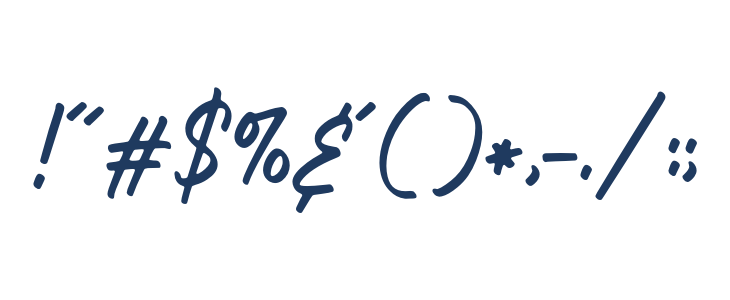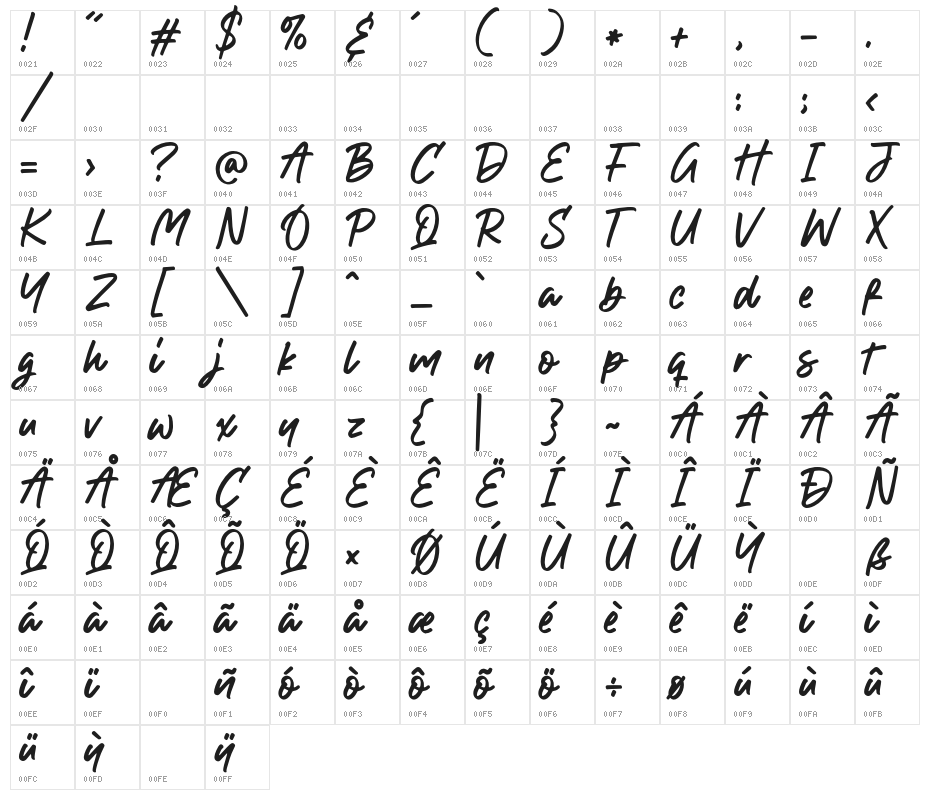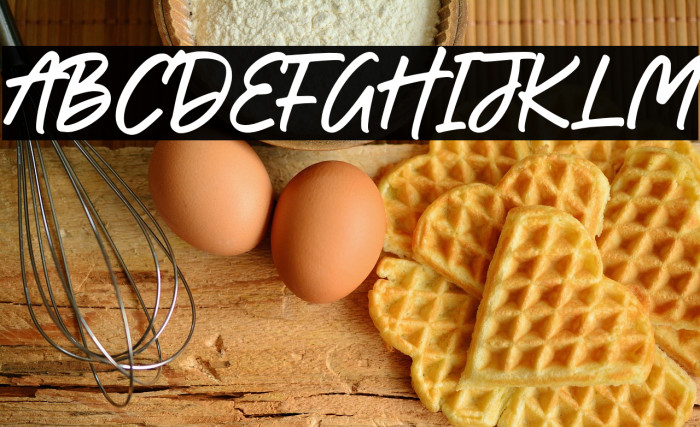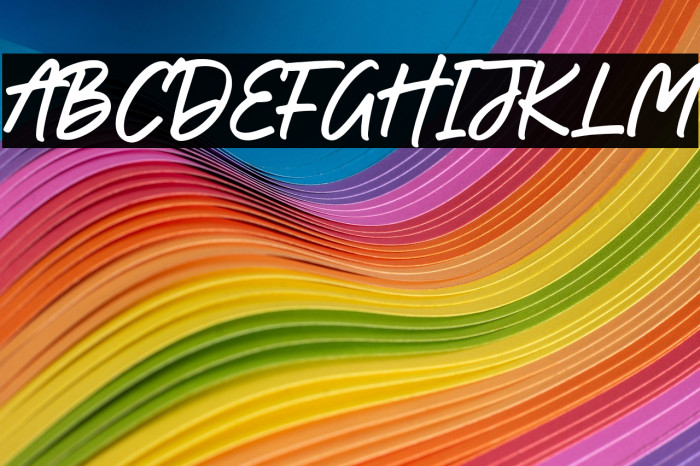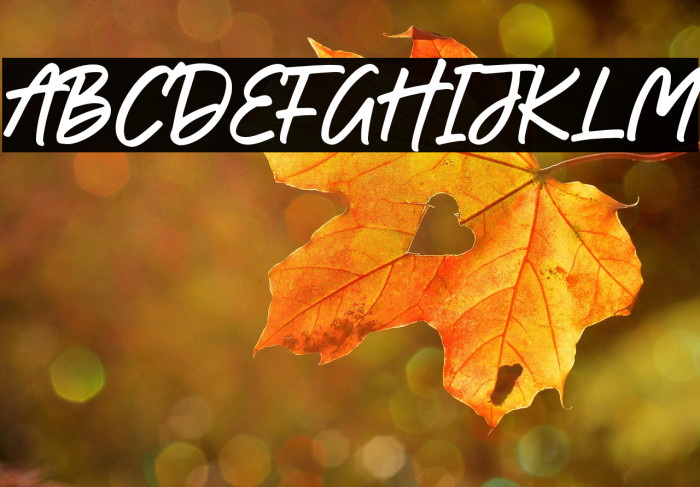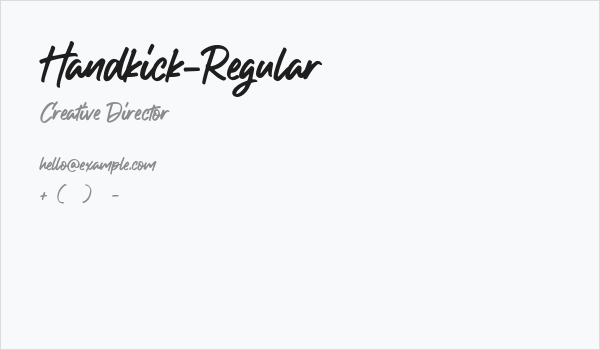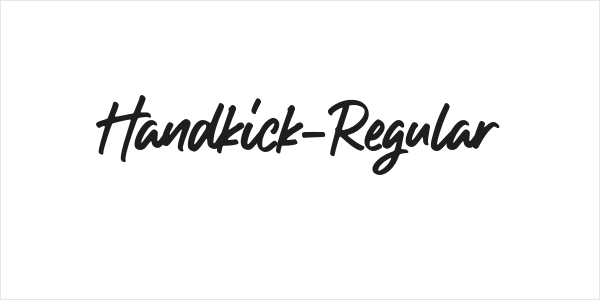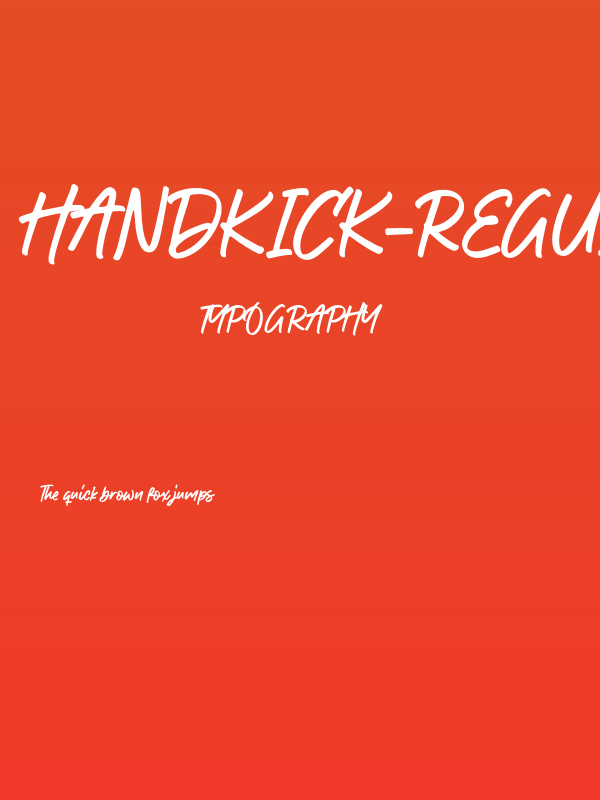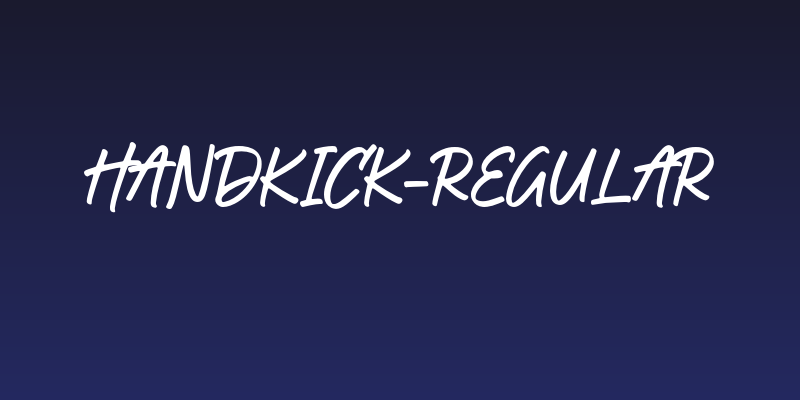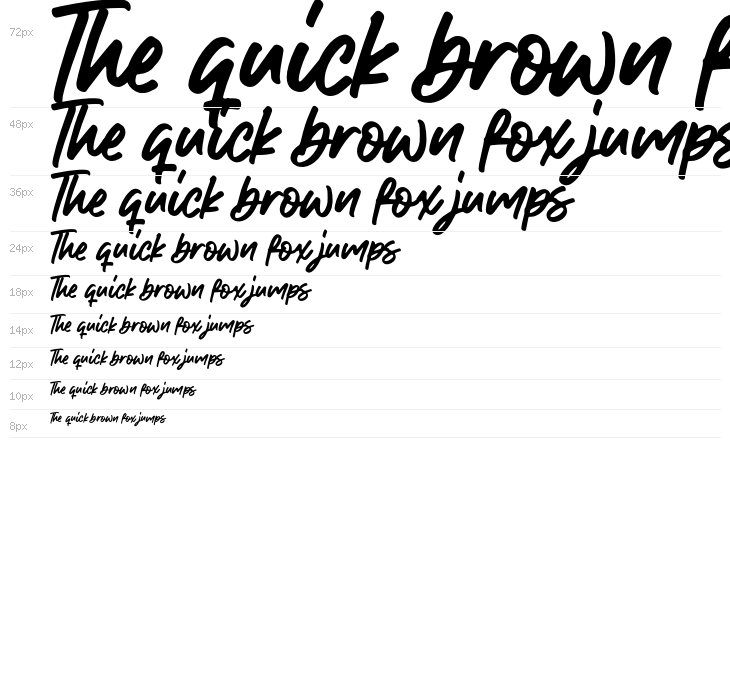
This font exhibits a dynamic and energetic handwritten style, characterized by its bold and fluid strokes. The uppercase and lowercase letters flow seamlessly, creating a sense of movement and spontaneity. The characters are slightly slanted, adding to the informal and casual appearance. The font maintains a consistent thickness throughout, providing a uniform look. The special characters are crafted with the same lively flair, ensuring they integrate well with the alphabetic characters. This font is ideal for projects that require a personal touch or a creative, informal vibe.
Overall StyleCasual, Energetic
Use CaseLogos, Headlines, Creative projects
Proposed ProjectsPerfect for greeting cards, invitations, personal branding, and creative posters.